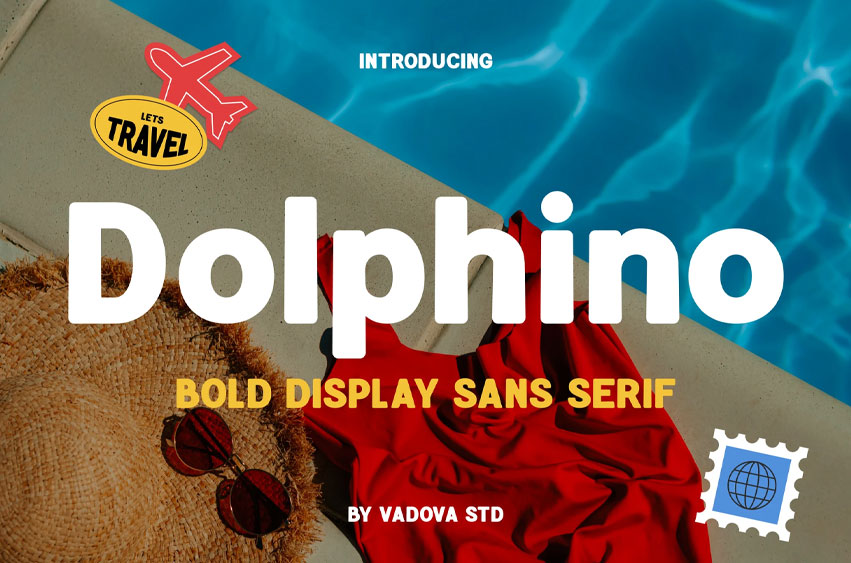
Dolphino Font Bold Display Sans Serif is a bold sans serif display typeface inspired by summer vacations, beach vibes, and travel aesthetics. With its heavy structure, smooth curves, and clean letterforms, Dolphino adds punch and clarity to any visual. Perfect for travel posters, beach branding, summer packaging, postcards, pool party invitations, and adventure-themed ads, this typeface captures the essence of fun under the sun. Ready for both digital and print projects that want to stand out.
Use Case travel posters, summer branding, adventure packaging, postcards, tropical invites, beachwear labels, sunscreen tubes, pool party flyers, travel blogs, surf shop signage, tourism ads, hotel branding, juice or cocktail packaging, seaside menus, luggage tags, event banners, holiday campaigns, summer sale promos, magazine covers, content creators.